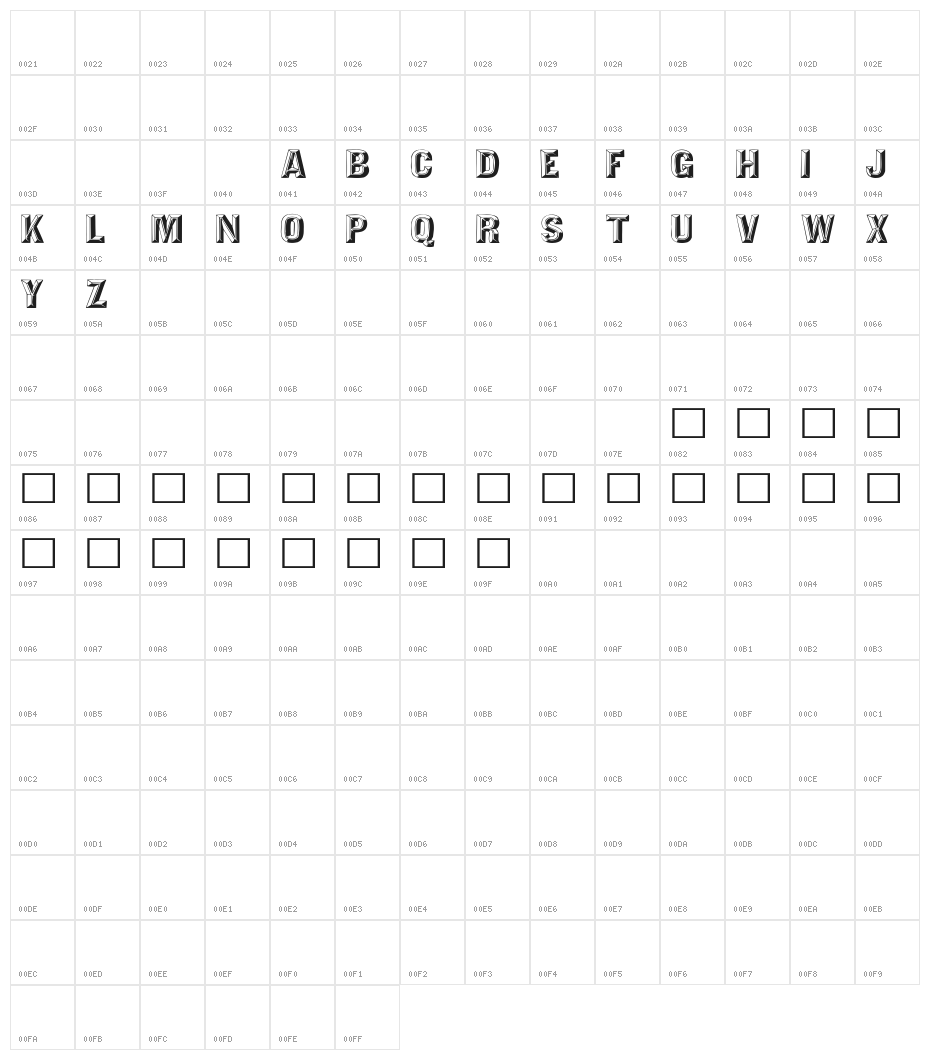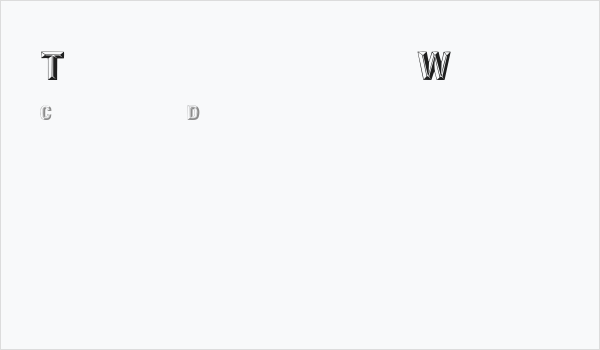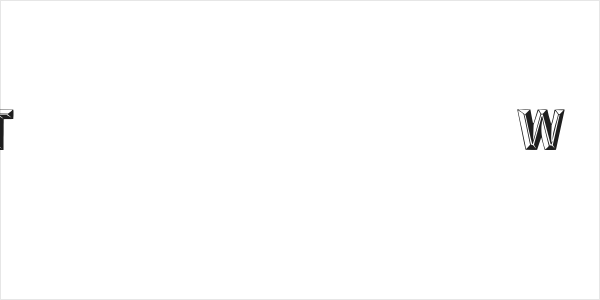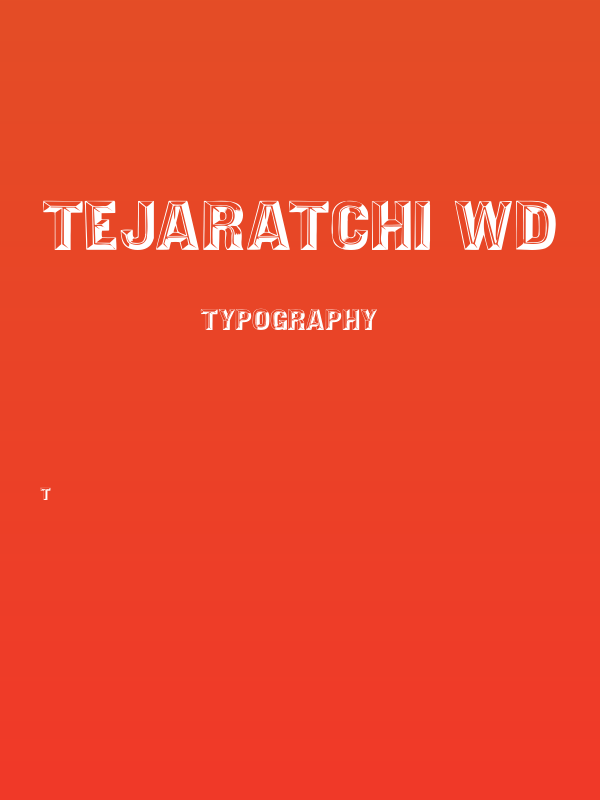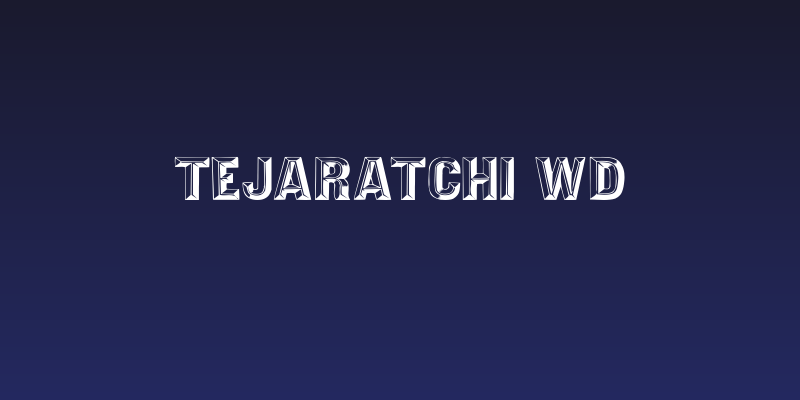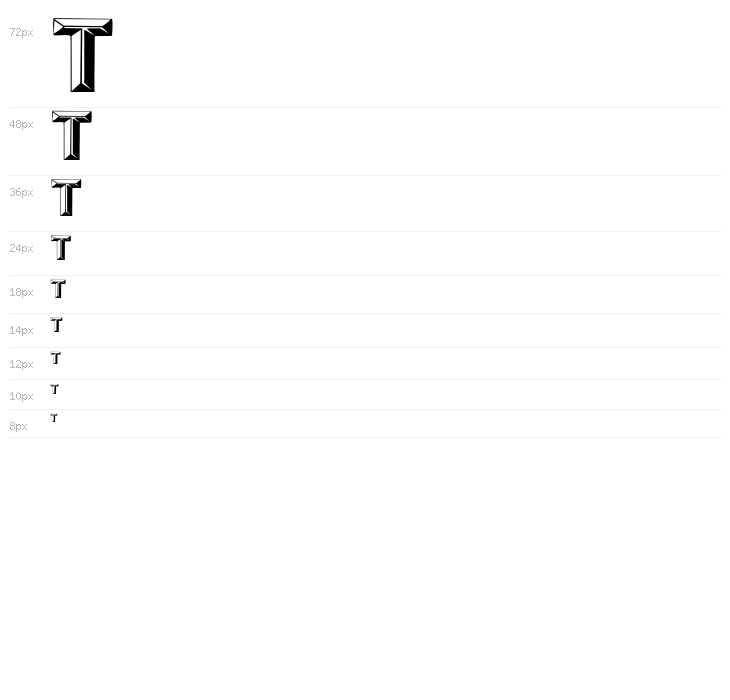
Tejaratchi Wd Font
Tejaratchi Wd Description
This font features a bold and striking design with a three-dimensional effect, giving each letter a sense of depth and shadow. The characters are uppercase only, with a strong, geometric structure that emphasizes vertical and horizontal lines. The font has a decorative style, making it ideal for attention-grabbing headlines or titles. The boldness of the letters is complemented by a high contrast between the thick strokes and the thin inner lines, enhancing the 3D illusion. The overall appearance is modern and dynamic, suitable for projects that require a bold statement.
| Proposed Projects | Ideal for posters, logos, headlines, and any design requiring a strong visual impact. |